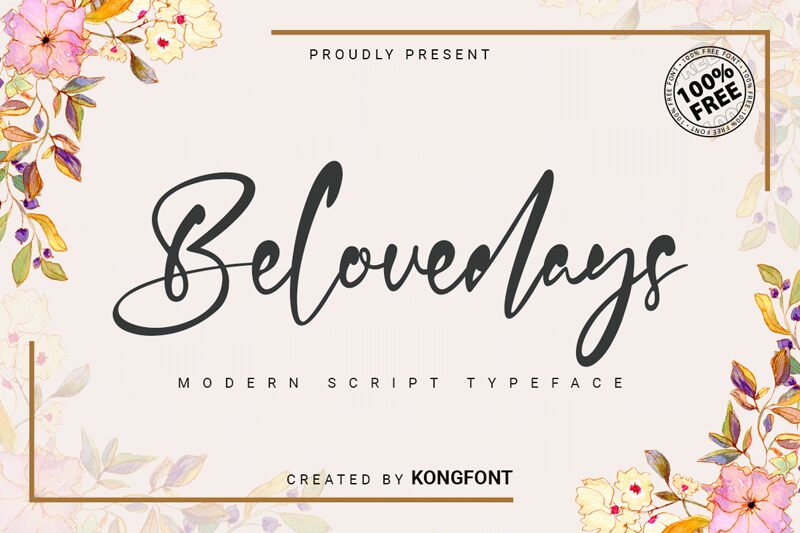
Belovedays
Belovedays, designed by Kong Font, is a captivating handwritten signature font that adds a touch of elegance and personalization to any project. With its semi-light weight, this font exudes grace and sophistication. Perfect for wedding invitations, event posters, or branding projects seeking a refined yet playful aesthetic. Its flowing strokes and unique characters make it stand out in both print and digital media. Belovedays effortlessly combines modernity with timeless charm, making it an ideal choice for fashion magazines, beauty blogs, or any design endeavor that requires a touch of individuality. Elevate your creations with Belovedays today!